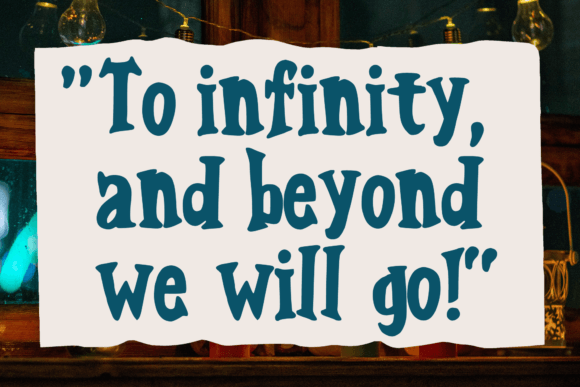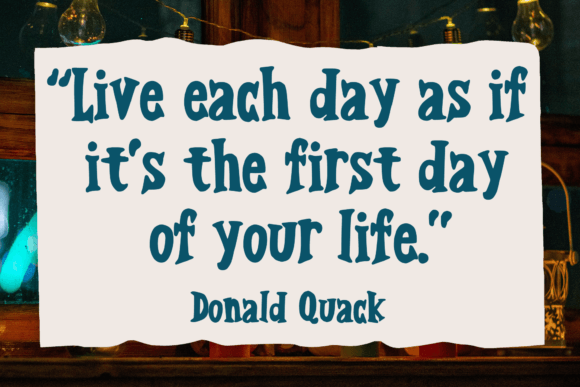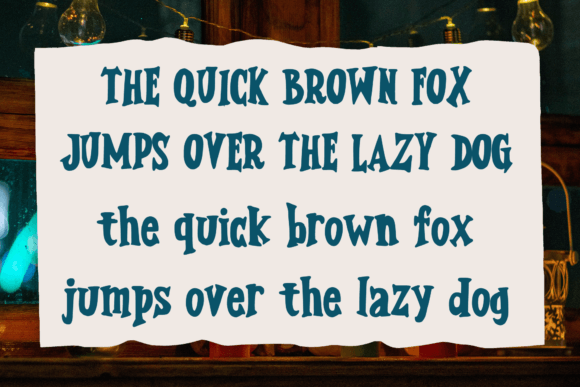
Introduction to Magic Vibes Font
Have you ever been brainstorming ideas for a creative project and suddenly, the perfect font pops into your head? That’s exactly what happened to me when I stumbled upon the Magic Vibes Font. It’s like a breath of fresh air for designers, offering a touch of magic to any design. Whether you’re working on a kids’ book, a t-shirt design, or a greeting card, this font is sure to bring a smile to your face.
As a valuable design resource, the Magic Vibes Font is perfect for designers who want to add a high-quality, whimsical touch to their projects. With its incredibly versatile style, it’s no wonder why this font is a favorite among designers. Plus, with a transparent background, you can easily layer it with other design elements to create stunning visual effects.
Key Features of Magic Vibes Font
- High-quality, unique font design perfect for creative projects requiring a touch of magic.
- Comes in a transparent background format, allowing for seamless integration with various design elements.
- Unique characteristics include intricate details and a whimsical feel, making it ideal for fantasy, adventure, and children’s book projects.
- Perfect for use in digital and print designs, such as book covers, posters, and social media graphics.
Honest Review: Magic Vibes Font
As a designer, I’m always on the lookout for high-quality design resources that can elevate my creative projects. The Magic Vibes Font is one such resource that caught my attention.
What works well about this font is its playful and whimsical feel. It’s perfect for adding a touch of magic to your designs, whether it’s a logo, social media graphics, or even a poster. The font is also free to download, making it an excellent choice for designers on a budget.
- ✨ Playful and whimsical feel
- ✨ Perfect for creative projects
However, there are a few limitations to consider. The Magic Vibes Font is a single font style, so you won’t find a variety of font weights or styles. Additionally, the font’s transparent background can sometimes make it difficult to read, especially on dark backgrounds.
- ⚠️ Limited font styles
- ⚠️ May not be readable on dark backgrounds
Overall, the Magic Vibes Font is a great design resource for designers who want to add a touch of magic to their creative projects. While it has its limitations, it’s a high-quality font that’s perfect for free download. I’d definitely recommend it to designers looking for a fun and playful font.
Tips for Getting the Most Out of Magic Vibes Font
Experiment with different font sizes, colors, and combinations to create a unique look. Use the transparent background feature to create a seamless design. Combine the Magic Vibes Font with other design elements to create a cohesive and professional design.
The Magic Vibes Font is perfect for creating designs for social media, flyers, posters, and brochures. It’s also great for creating presentations, reports, and other business documents. The high-quality design resource makes it ideal for professional and creative projects.